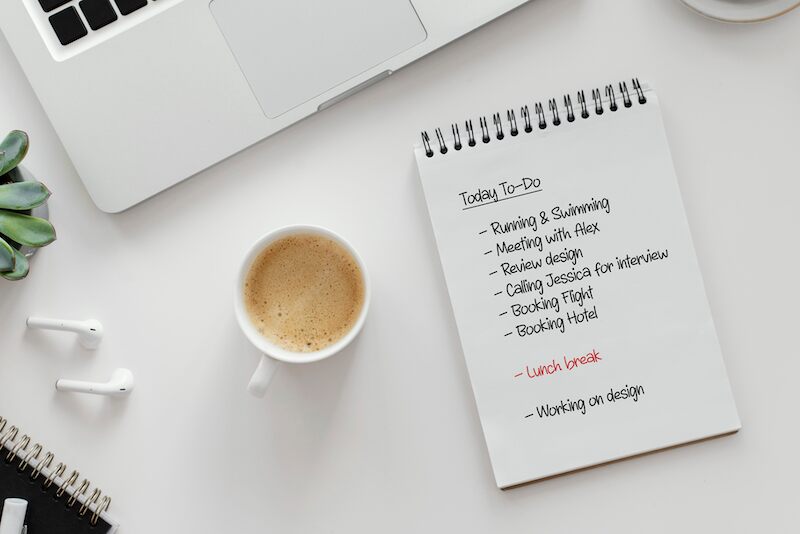
LittleWerewolf Regular
Are you in search of a font that exudes a casual, handwritten charm with just the right touch of whimsy? Look no further than Little Werewolf, designed by Ade Budiman. This semi-light typeface is perfect for adding a personal and playful touch to your creative projects.
Whether you're designing invitations, creating social media graphics, or crafting a unique logo, Little Werewolf shines with its unique characteristics that set it apart from other fonts. Its versatility allows it to be used in various creative projects, making it suitable for everything from branding and packaging to posters and greeting cards.
With its charming style and semi-light weight, Little Werewolf is sure to add a touch of character to any design.